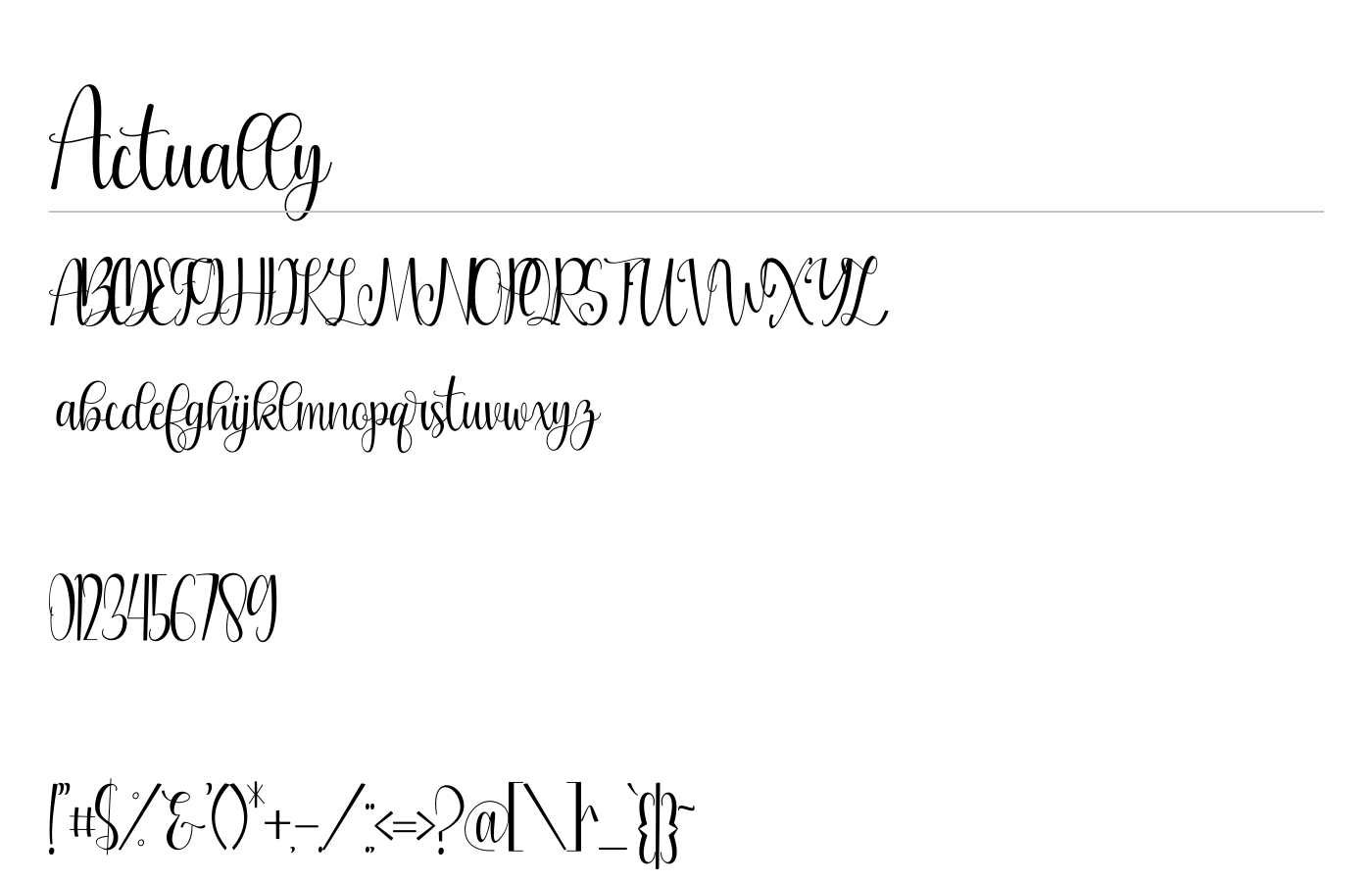
Actually Font is a delicate, handwritten script typeface with tall, slender letterforms and graceful, looping strokes that give it an elegant and airy feel. Its fine lines and playful curves make it perfect for feminine branding, wedding invitations, and stylish editorial headlines where a touch of sophistication and personality are desired. This font works well in settings that call for a personal, artistic touch without sacrificing readability in larger display uses.
Actually Font
About Actually Font
| Font family | Actually Font |
| Designer | Arief Tri Sulistiyono |
| Trademark | Supersemar Letter |